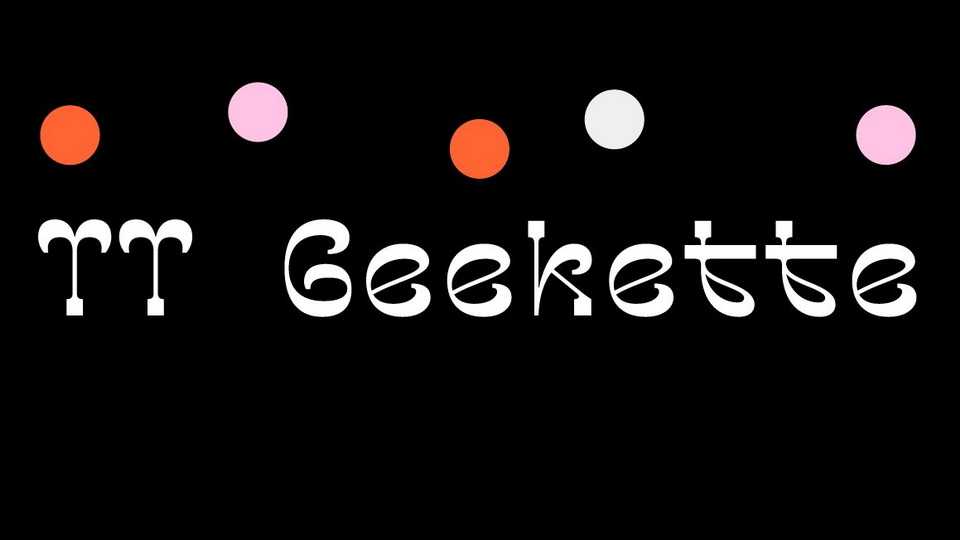
Download TT Geekette font, an experimental variable serif typeface with friendly and flexible character of shapes. TT Geekette font experiments with the smoothness, softness and plasticity of forms.